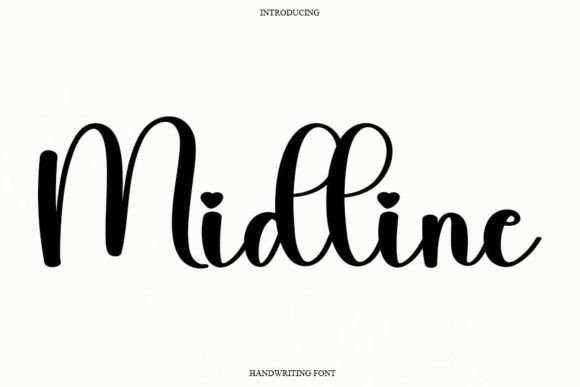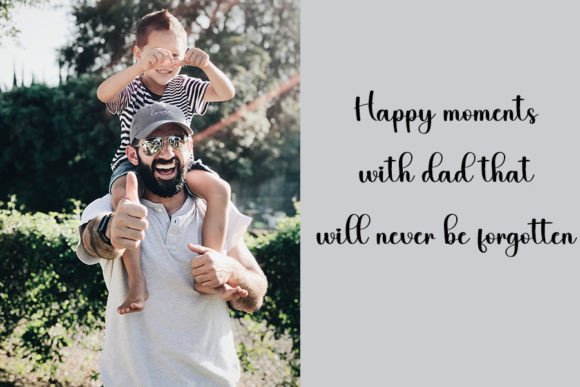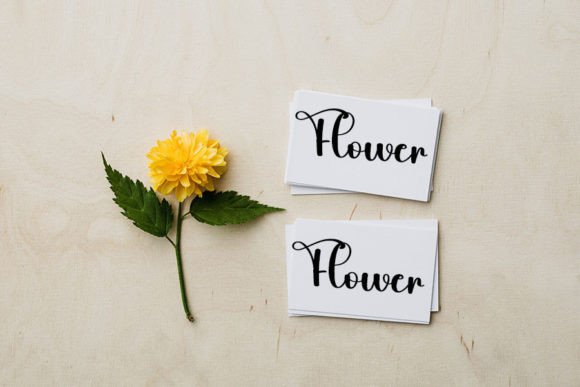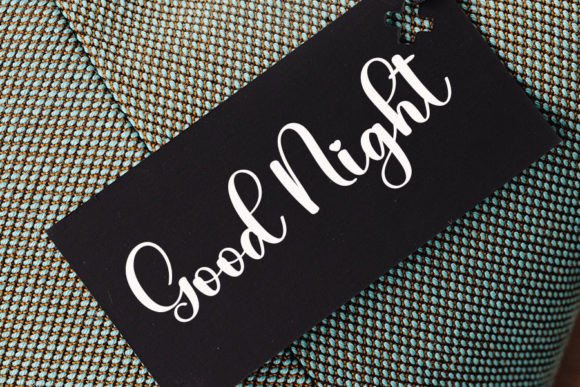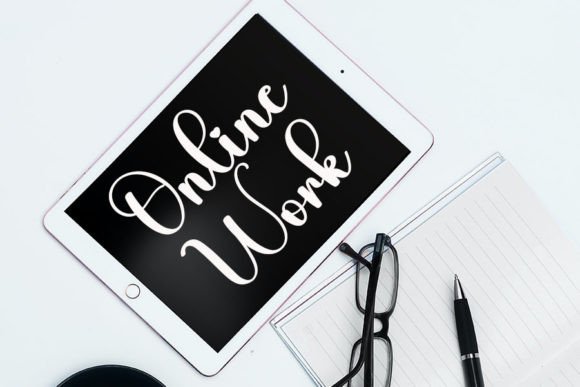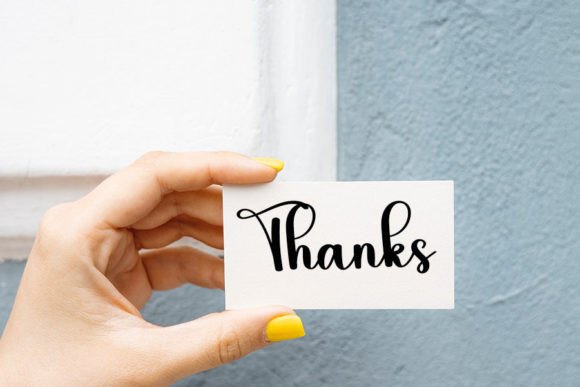
Midline Font
About Midline Font
**Midline: A Sweet and Beautiful Handwritten Font**
Introducing **Midline**, a font that exudes sweetness and beauty with its unique handwritten style. Notable for its characters that gracefully dance along the baseline, this font brings a touch of luxury to any design project you wish to undertake.
**Midline** stands out with its charming and elegant letterforms, each flowing along the baseline in a way that creates an enchanting rhythm. This distinctive feature makes it an excellent choice for designs that require a touch of sophistication and luxury.
For logos and branding, **Midline** adds a layer of refinement and uniqueness that helps your brand establish an impression of luxury. Its exquisite letterforms give your visual identity a distinctive edge, setting it apart from the ordinary.
This font is a splendid addition to any design project that calls for sweetness and beauty. Whether you’re working on invitations, stationery, wedding designs, or any creative endeavor, **Midline** enhances the overall aesthetic with its enchanting charm.
In essence, **Midline** is more than just a font; it’s a design tool that brings a touch of elegance and luxury to your creative projects. Whether you’re designing for branding or special occasions, choose **Midline** to infuse your work with its unique and enchanting style. Embrace its sweet and beautiful charm, and let your creativity shine with a touch of luxury.